Great graphic design is powered by great font selection. But picking great fonts is a challenge most people. Luckily, Canva has made adding great fonts to your designs much easier. In this tutorial, our team of design experts will cover the best 3D fonts in Canva.
What Are 3D Fonts?
3D fonts are typography designs that give the appearance of being three-dimensional. Some characteristics of 3D fonts include:
- Depth: 3D fonts have depth, giving the impression that they are popping out of the page or screen. This depth can be created through shading, gradients, or extrusions.
- Shadows: 3D fonts often feature shadows, which can help to enhance the perception of depth and give the impression that the letters are casting shadows.
- Lighting: Lighting is a crucial element in 3D fonts. The position and intensity of the light source can affect the appearance of the font, creating highlights and shadows that add to the 3D effect.
- Texture: 3D fonts often have a textured appearance, with surfaces that look like they have been carved or etched. This texture can be created through the use of materials like stone or metal, or through the application of patterns and other visual elements.
- Perspective: 3D fonts are often designed to create a sense of perspective, with letters that appear to be receding into the distance or coming forward towards the viewer.
- Realism: The goal of many 3D fonts is to create a realistic three-dimensional effect. This can be achieved through the use of subtle details and realistic lighting and shadows.
- Playful: While some 3D fonts aim for realism, others are more playful and use exaggerated forms and bright colors to create a sense of fun and whimsy.
Best Canva 3D Fonts
1. Pragmatica Shadow
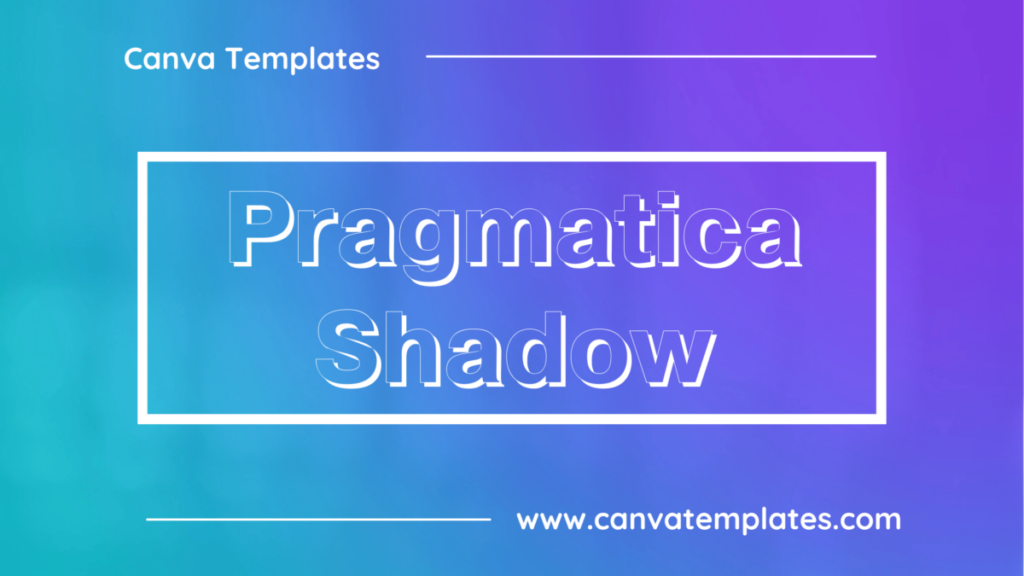
Pragmatica Shadow is a clean and modern sans-serif font with a shadow effect that gives the letters a 3D appearance.
2. Londrina Sketch
Londrina Shadow is a playful and fun sans-serif font with a shadow effect that adds depth to the letters.
3. Intro Rust Base Shade
Intro Rust Base Shade is a distressed and textured font with a shadow effect that gives the letters a rugged appearance.
4. Bungee Shade
Bungee Shade is a display font that features a unique 3D shading effect. The characters appear as if they are popping out of the page, with a shadow cast below them. The font has a bold and playful style, with rounded edges and thick strokes. It is designed to be attention-grabbing and is well-suited for use in headings, titles, and other large text settings. Bungee Shade is part of the Bungee font family, which also includes Bungee Regular, Bungee Hairline, Bungee Inline, Bungee Outline, and more.
5. Mokoto Glitch 2
Mokoto Glitch 2 is a distorted and fragmented font with a glitch-style design. It’s perfect for creating experimental and futuristic designs, or for adding a creative and unconventional touch to any project. Its distorted shapes and fractured letterforms make it highly customizable, giving it a unique and personalized feel.
6. Sprite Graffiti Shadow
Sprite Graffiti Shadow is a display font designed to look like graffiti with a three-dimensional effect. The font features bold, thick lines with a rough and textured style, giving it an edgy and street-inspired look. The shadows behind the letters make them appear as if they are popping off the page, adding to the overall graffiti feel of the font.
7. Fascinate Inline
Fascinate Inline is a font that features bold, clean lines with a slightly retro look. The letters are designed with a thin inline that runs parallel to the outer edge of each character, creating a shadow effect that adds depth and interest to the text. The overall effect is modern and stylish, making Fascinate Inline a popular choice for branding, logos, and display typography.
8. Portal
Portal is a modern, geometric sans-serif font with a slightly futuristic and tech-inspired design. Its clean lines and sharp angles make it well-suited for technology, design, or architectural projects, such as logos, websites, or marketing materials.
9. Stenciliqo Extruded
Stenciliqo Extruded is a bold, stencil-inspired display font with strong, geometric shapes and a three-dimensional effect. Its eye-catching design makes it perfect for projects that require a powerful visual presence, such as headlines, logos, or posters.
10. Brim Narrow Combined 2
Brim Narrow Combined 2 is a sans-serif font that features condensed letterforms and rounded edges. It has a modern and clean appearance, with a distinct personality that is suitable for a variety of design applications such as headlines, logos, and branding. The font is designed by BC Garnett and is part of the Brim Narrow family of fonts. Brim Narrow Combined 2 is a versatile font that can be used for both display and text purposes, and it supports various languages and characters.
Conclusion